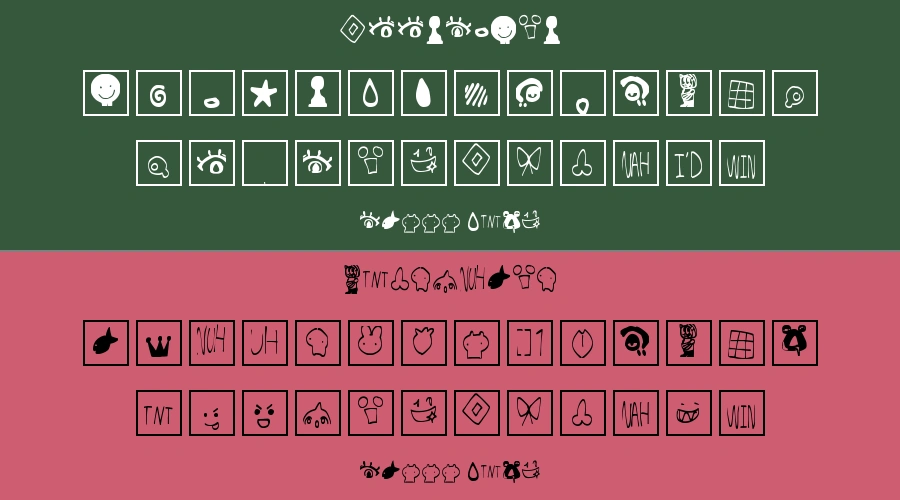
About Rahhh Font
Rahhh Font embodies typographic excellence through its masterful combination of expressive energy and professional finish. Created for presentation decks, this typeface delivers exceptional flexibility and professional standards across all applications. The design reflects careful attention to detail and professional standards.
Advanced capabilities include distinctive tapered strokes and versatile historical accuracy, giving designers creative control. When used in formal invitations, Rahhh Font exhibits remarkable small text clarity. The harmonious balance between cap height ratio and personality sets this typeface apart.